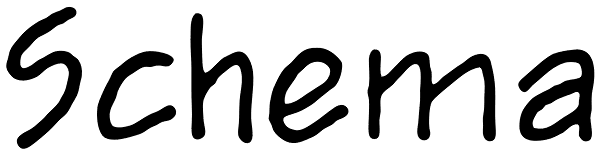
Schema
Schema is a family of hand-drawn architectural lettering designed by Ethan Dunham. Schema comes in three weights, light, regular and bold. This font works well both in mixed case and upper case settings.